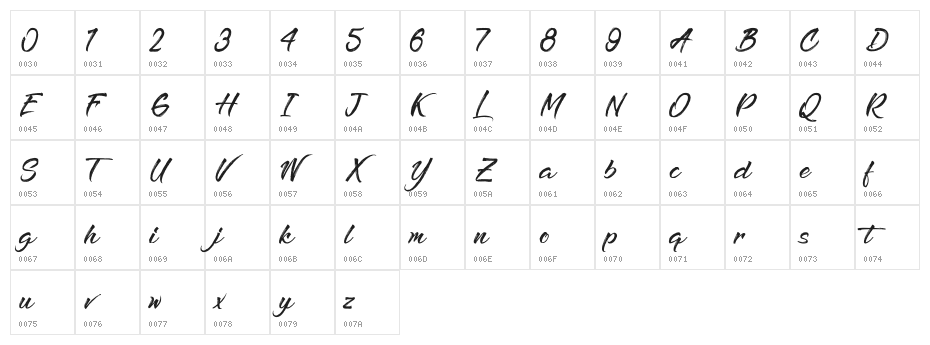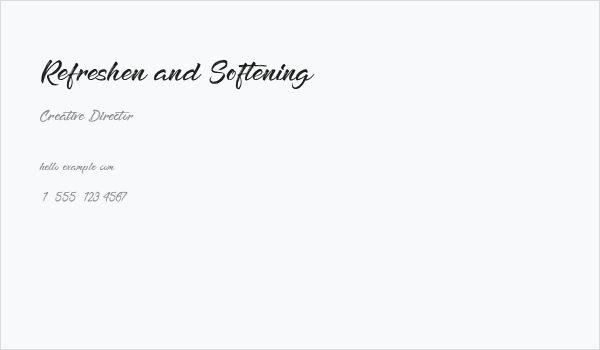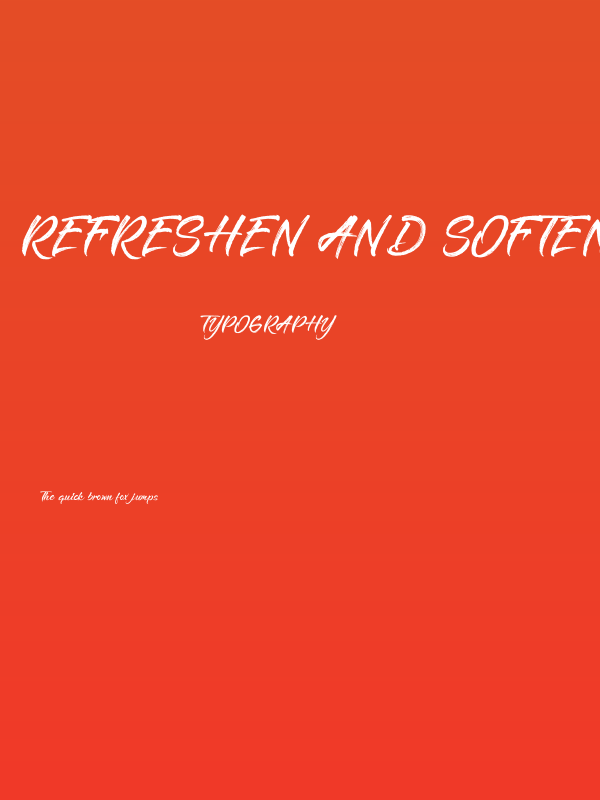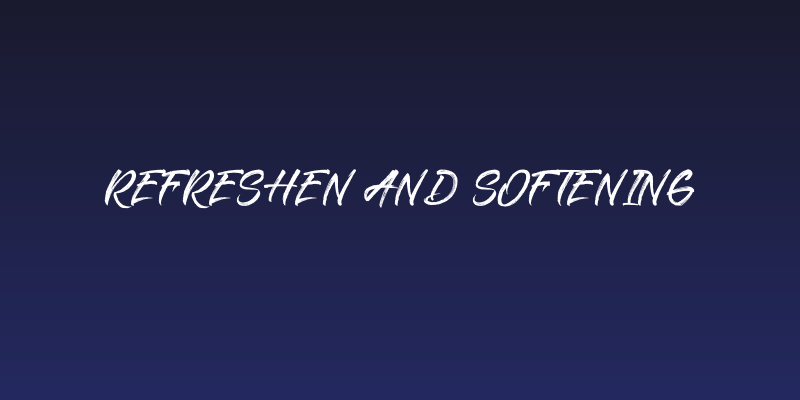
Refreshen and Softening Font
Refreshen and Softening Description
This font exudes a dynamic and energetic feel, characterized by its brush-like strokes and fluid motion. The letters have a hand-painted appearance, with varying thickness that adds a sense of movement and liveliness. The uppercase letters are bold and expressive, while the lowercase letters maintain a consistent flow, enhancing readability. The numerals follow the same stylistic approach, ensuring uniformity across all characters. This font's artistic flair makes it ideal for creative projects that require a personal touch.
Use CaseLogos, Headlines, Artistic projects
Proposed ProjectsIdeal for branding, artistic posters, invitations, and any project that benefits from a personal, creative touch.